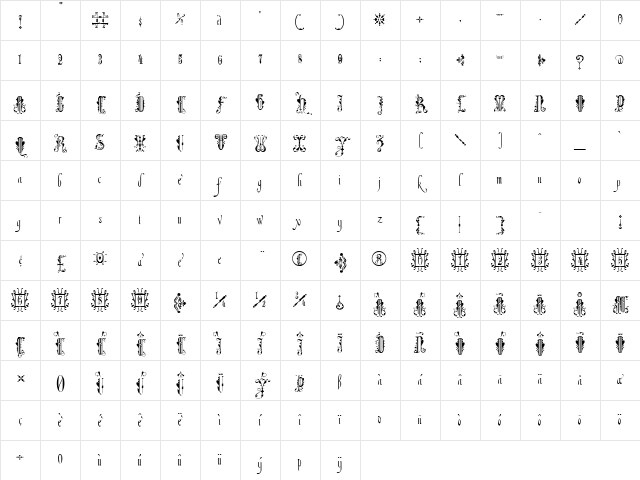
Amadeus Regular Free Font
Amadeus Regular
Foundry: Gophmann A.L.
Designer: Gophmann A.L.
Design Context for Amadeus
Amadeus is a composed and adaptable typeface that performs quietly and consistently across a wide range of design contexts.